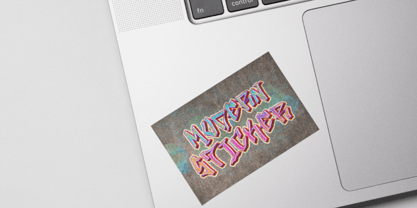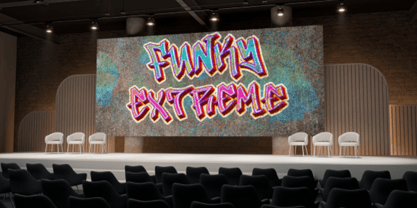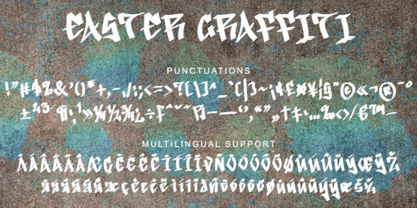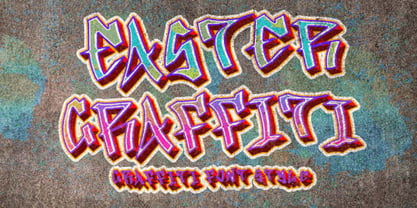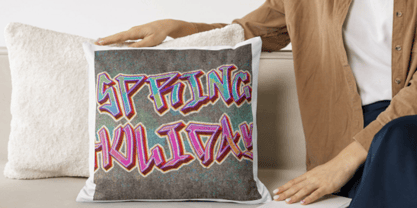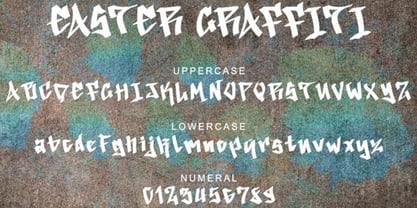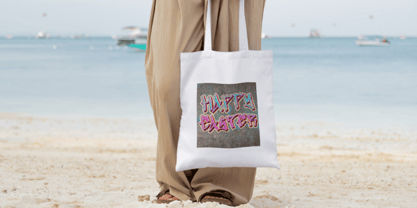
Easter Graffiti
by Yoga Letter
The Easter Graffiti Font Family was designed by Isroni Yoga Prasetya and published by Yoga Letter. Easter Graffiti contains 1 styles.
“Easter Graffiti” is a unique and elegant graffiti font. This font is equipped with uppercase, lowercase, numeral, punctuations and multilingual support. Very suitable for stickers, posters, easter, print, branding, logo, spring, summer, holiday, st patrick’s day, halloween, concerts and others.